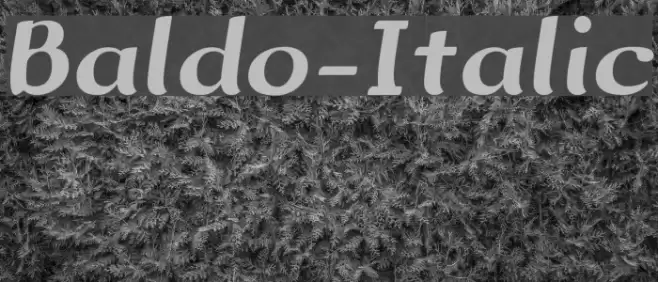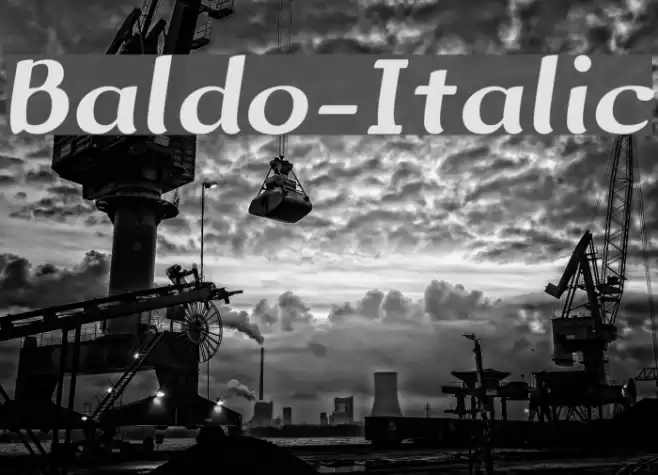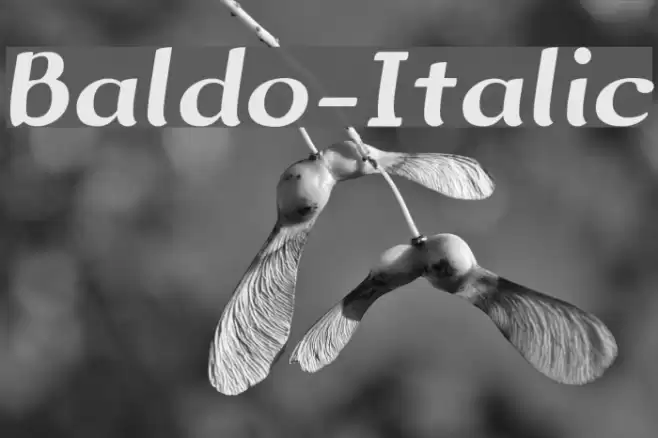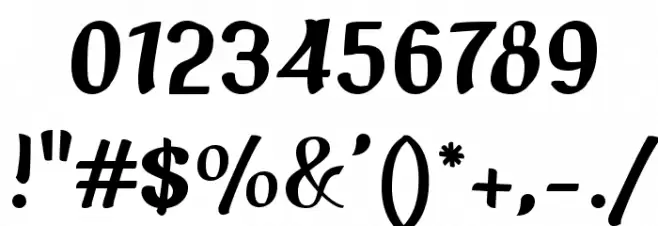
Baldo-Italic Font
Baldo-Italic Description
This font features a playful and dynamic italic style with a bold presence. The characters are slightly slanted, giving a sense of motion and energy. The strokes are smooth and rounded, with a consistent thickness that adds to its boldness. The uppercase letters are tall and commanding, while the lowercase letters maintain a friendly and approachable appearance. The numerals are clear and easy to read, matching the overall style of the alphabet. Special characters are well-integrated, maintaining the same playful and bold aesthetic. This font is perfect for projects that require a lively and engaging typeface.
A bold, playful italic font with smooth, rounded strokes from Uncategorized fonts.
- Proposed Projects: Ideal for branding, posters, headlines, and any design needing a lively and bold typeface.